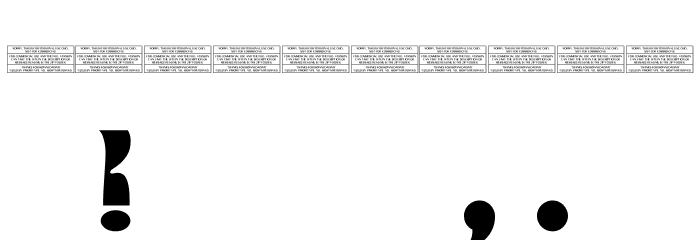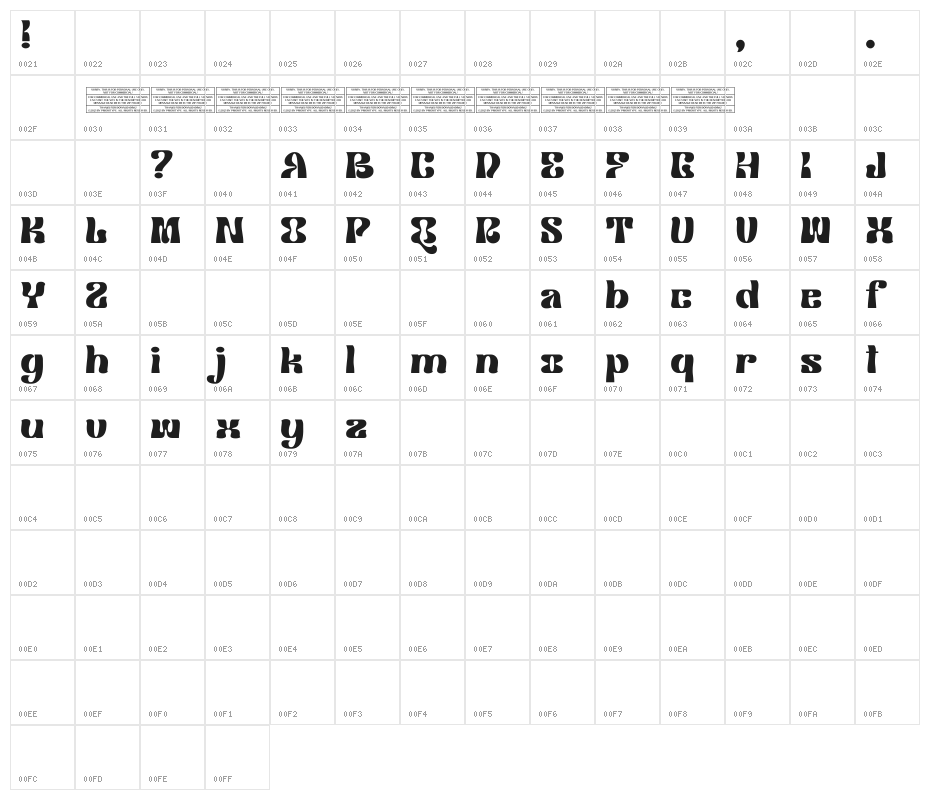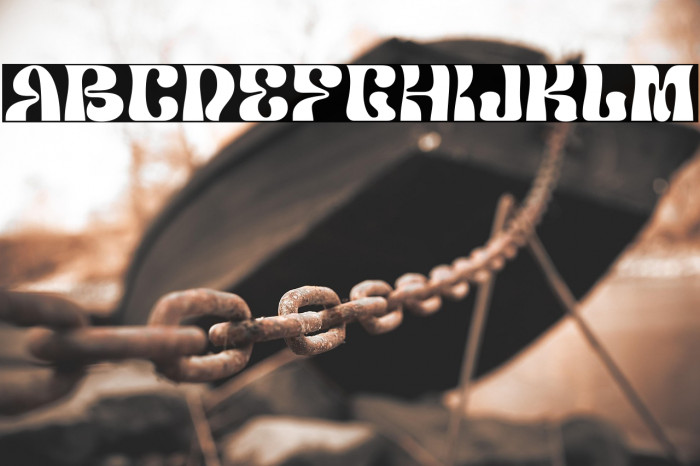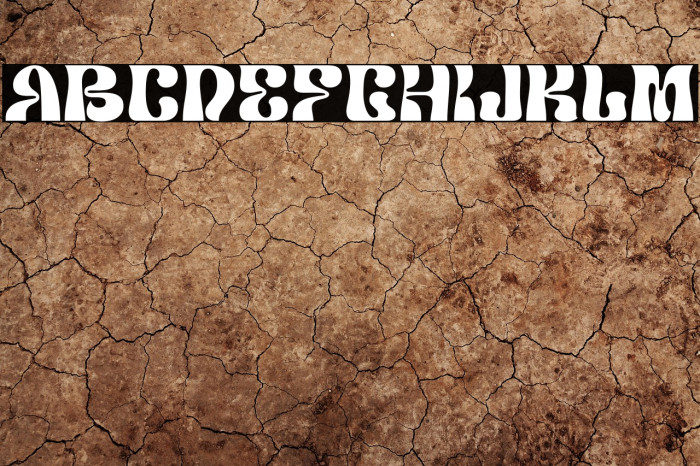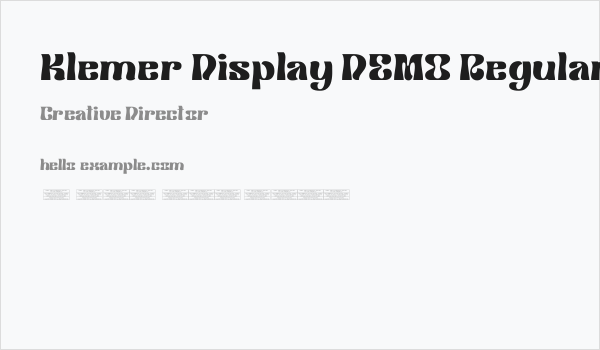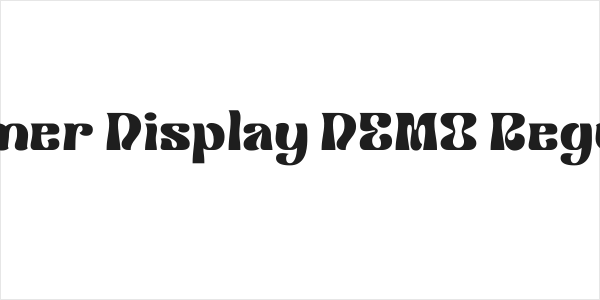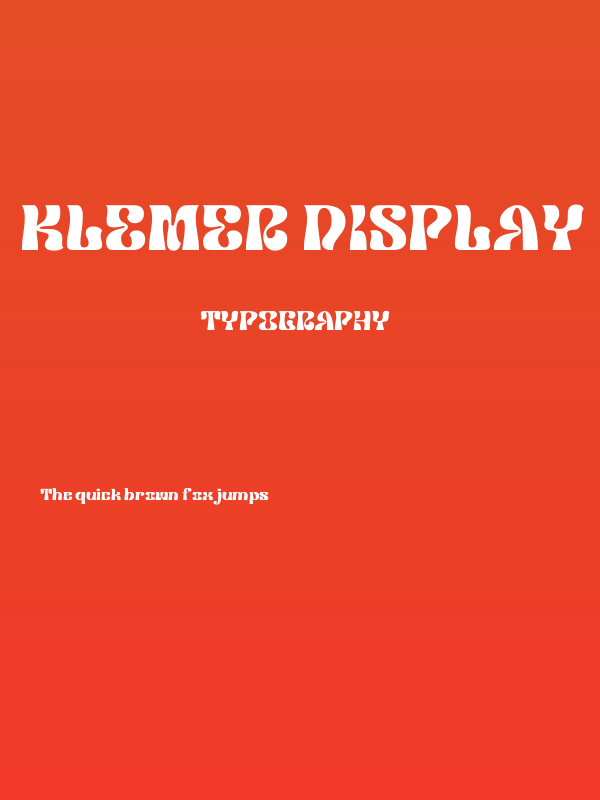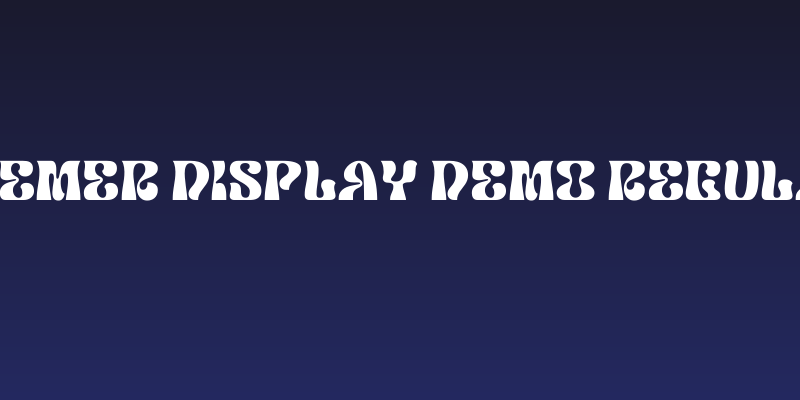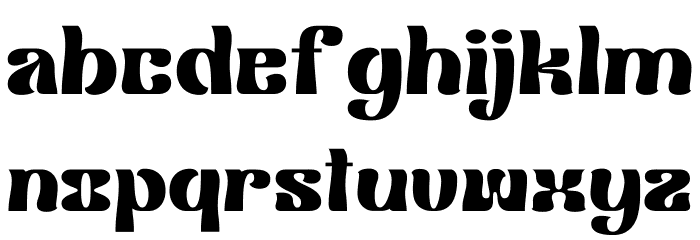
Klemer Display DEMO Regular Font
Klemer Display DEMO Regular Description
This font features a bold and dramatic style with thick, heavy strokes and unique, artistic curves. The uppercase letters have a strong presence, with distinct geometric shapes and a playful, almost whimsical flair. The lowercase letters maintain the boldness but introduce softer curves, adding a touch of elegance. The numbers and special characters are equally bold, ensuring consistency throughout. This font is designed to capture attention and make a statement, ideal for creative and impactful designs.
| Proposed Projects | Perfect for posters, branding, headlines, and any project requiring a strong visual impact. |